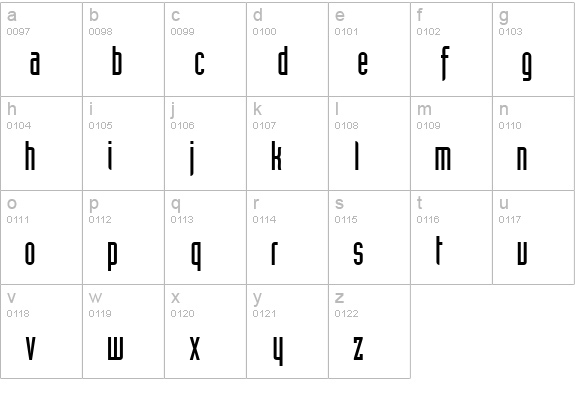
AssemblySSK font is a modern and stylish typeface that combines sleek lines with a sense of industrial strength. Its geometric shapes and sharp edges give it a futuristic appearance, making it perfect for projects that require a contemporary touch. This versatile font is ideal for use in branding, logo design, and digital displays. Best of all, AssemblySSK font is available for free download at FontsMarket.com. This means you can easily access this high-quality font without any cost, making it a valuable addition to your design toolkit. Elevate your projects with the bold and distinctive look of AssemblySSK font today.